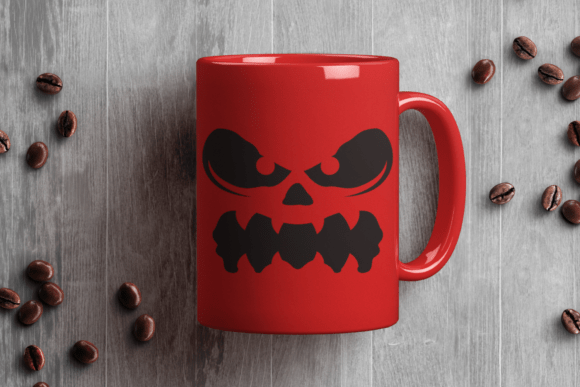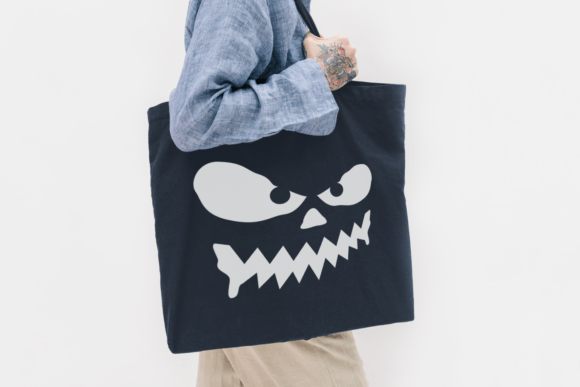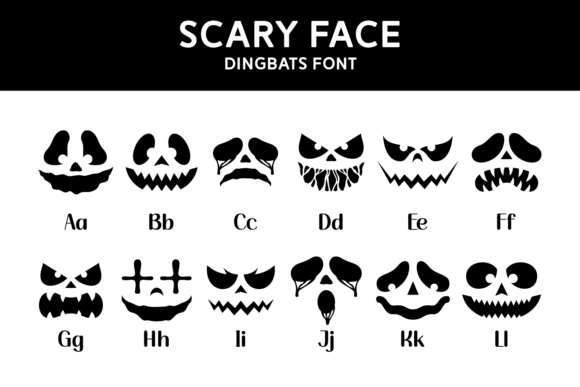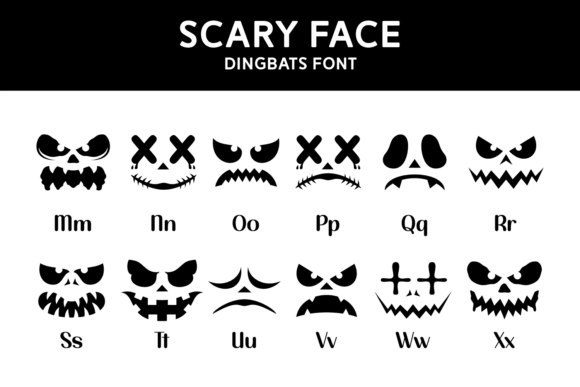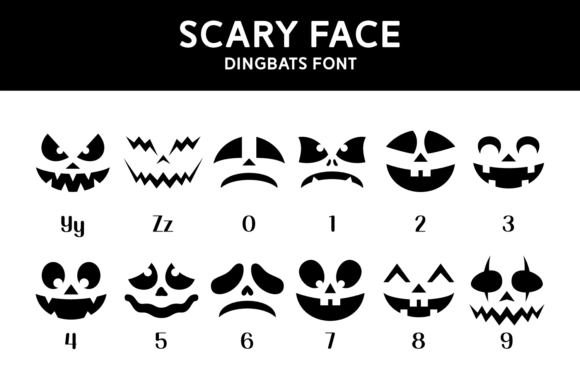
Introduction to Scary Face Font
This unique typeface, dubbed “Scary Face Dingbats Font,” offers a highly specialized collection of glyphs designed to capture the spirit of Halloween and horror.
What sets this font apart is that it entirely consists of various stylized jack-o’-lantern and monstrous facial expressions, rather than traditional letters or numbers The complete set includes 26 characters for both uppercase and lowercase positions (Aa through Zz), which map to a diverse range of spooky faces, along with 10 numeric characters (0 through 9) that similarly feature different pumpkin or creepy visages.